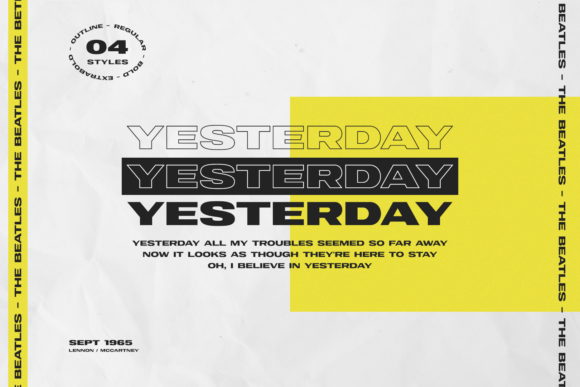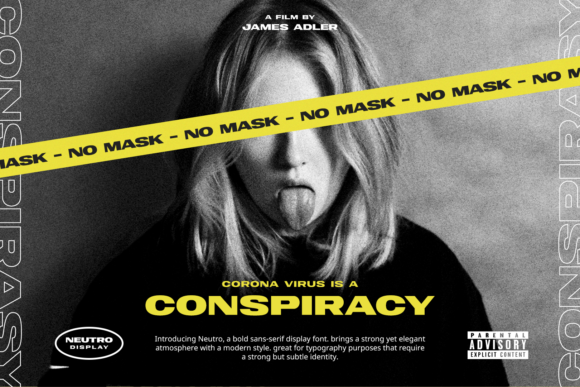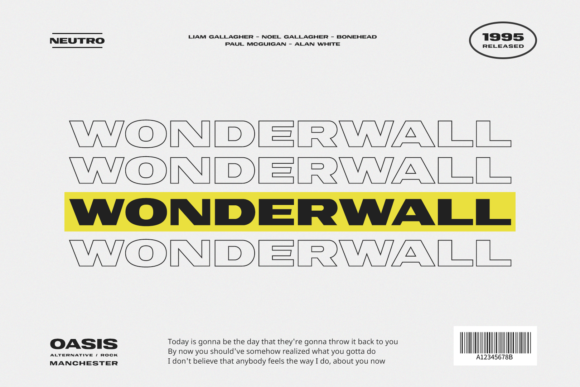
Introduction to Neutro Font
Neutro is a bold and chunky lettered display font.
Add it to your most creative ideas and notice how it makes them come alive .
Why Choose Neutro Font?
Neutro Font offers exceptional quality and versatility, making it a valuable addition to your design toolkit. Whether you’re creating for personal projects or commercial use, Neutro Font delivers professional results.